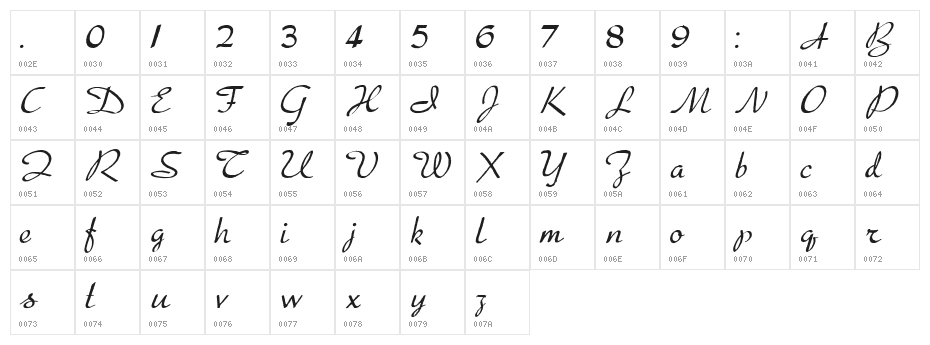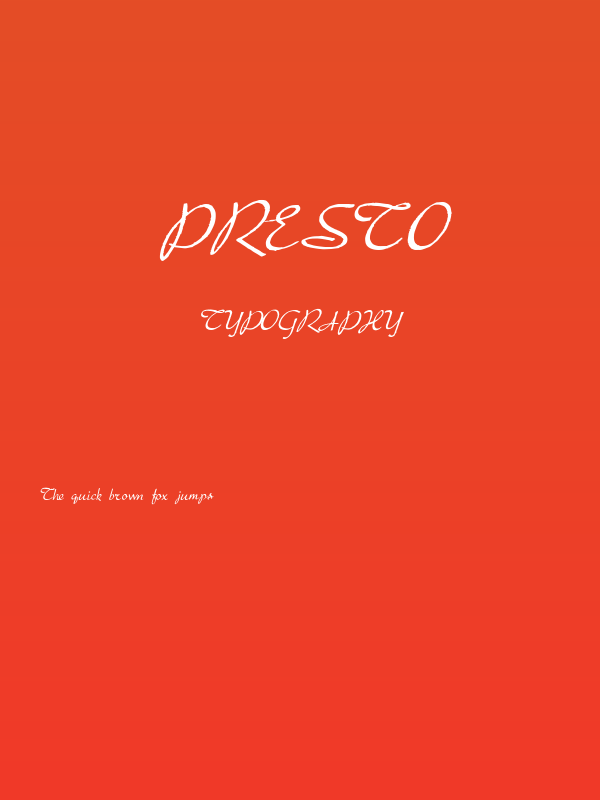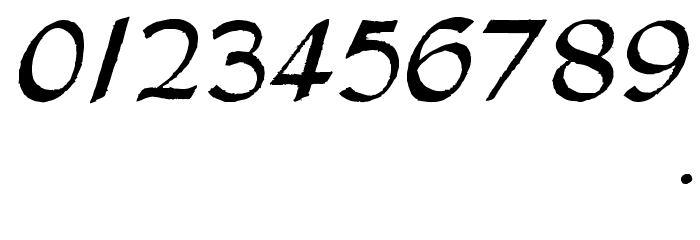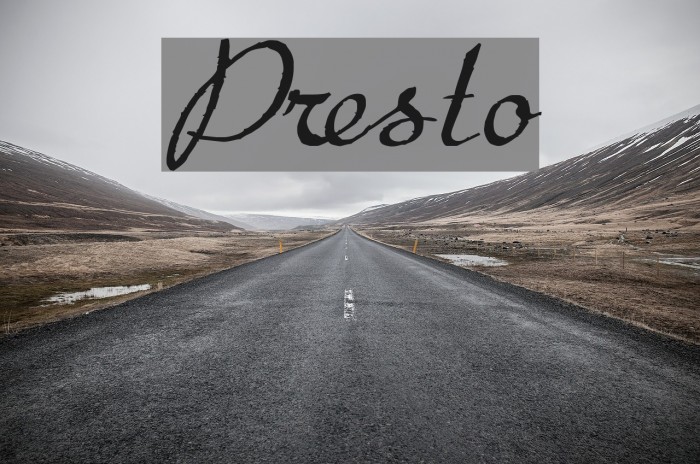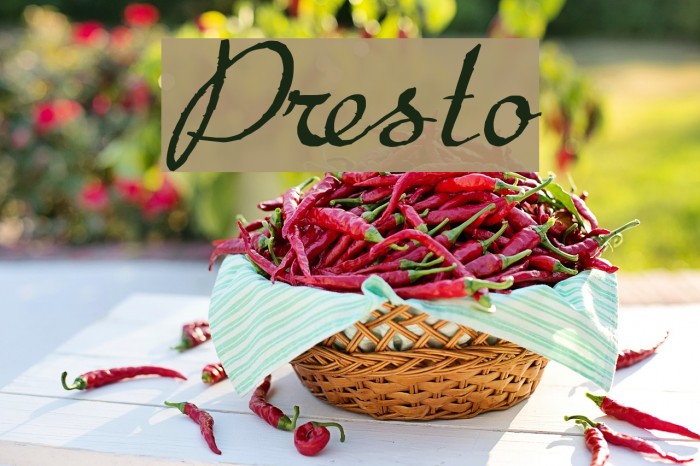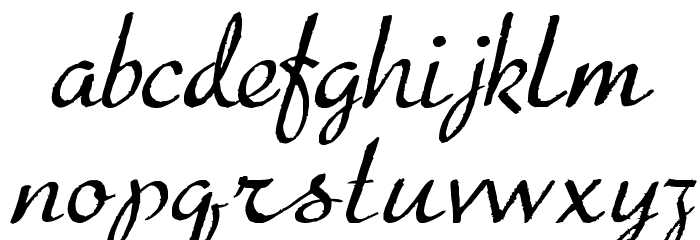
Presto Font
✎ Calligraphic
Presto Description
This font is a dynamic and expressive script style, characterized by its fluid, cursive strokes and elegant flair. The uppercase letters exhibit a graceful, sweeping motion with distinctive loops and curves, while the lowercase letters maintain a consistent flow, enhancing readability. The numerals are bold and slightly slanted, complementing the overall aesthetic. The font's design is reminiscent of traditional calligraphy, yet it retains a modern touch, making it versatile for various applications. The special characters are thoughtfully integrated, maintaining the font's cohesive style.
| Overall Style | Elegant, Modern |
| Use Case | Logos, Invitations, Decorative text |
| Proposed Projects | Ideal for wedding invitations, greeting cards, branding, and elegant packaging designs. |